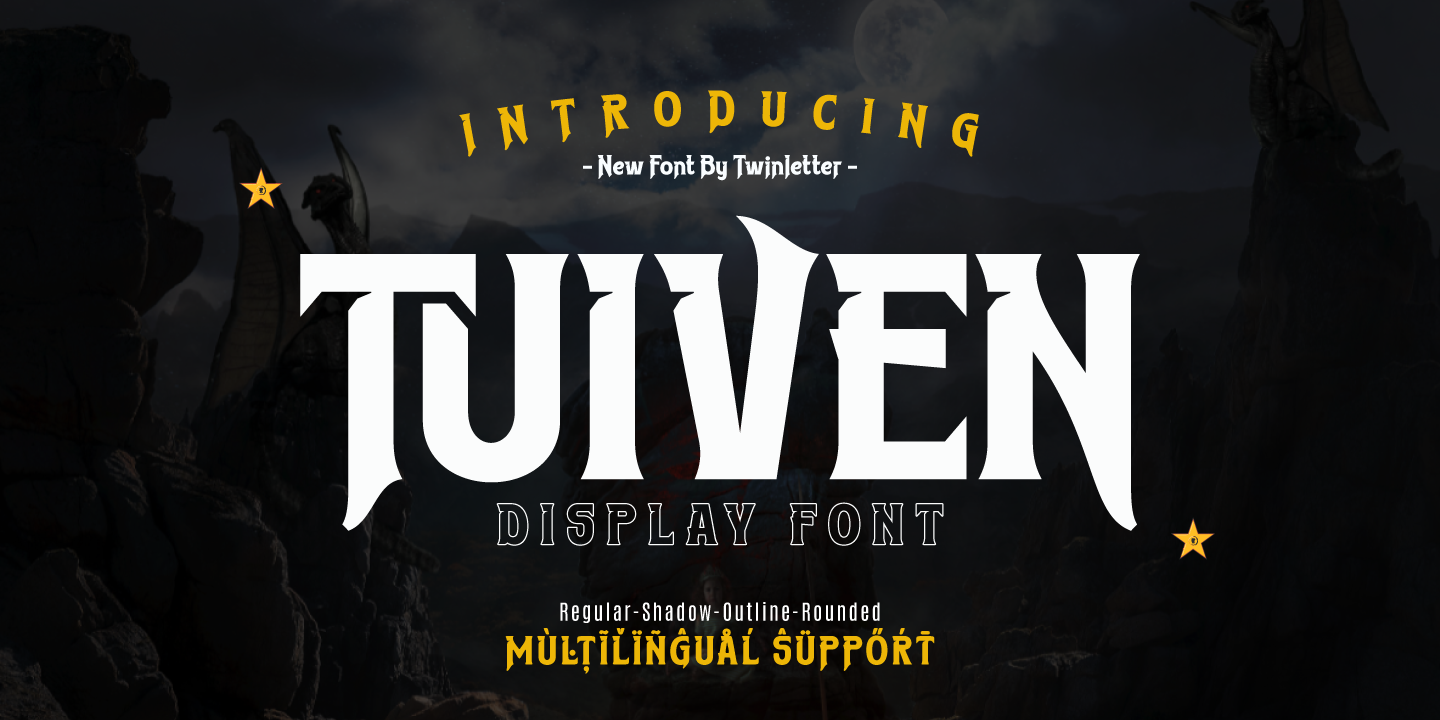
The Tuiven Font is ideal for movie posters, film trailers, title sequences, and cinematic branding projects.
This font is exciting because its bold, dramatic design with elegant details creates a cinematic, epic aesthetic that captures attention instantly.
The Tuiven Font family includes Regular, Bold, Italic, and Shadow styles, offering versatility for impactful visual designs.
Capture the essence of Hollywood with the Tuiven Font Free Download, a typeface crafted to infuse cinematic drama into your projects. Designed by Twinletter, this font blends boldness with elegance, making it perfect for movie titles, promotional posters, and film-related branding. Its artistic letterforms, featuring crisp lines and meticulous details, deliver a luxurious, soulful look that enhances the visual identity of any cinematic work.
The Tuiven Font excels in both digital and print media. Its serious, deep color palette evokes mystery, ideal for epic or thriller genres, while modern elements keep it fresh for contemporary designs. Whether used in a trailer’s bold title or a sleek website header, this font ensures a professional, attention-grabbing presence. It pairs seamlessly with minimalist or ornate design elements, offering creative flexibility for designers.
With its four-style family—Regular, Bold, Italic, and Shadow—the Tuiven Font adapts to a range of creative needs, from subtle accents to commanding headlines. For those testing its potential, the Tuiven Font Free Download provides a demo version to explore its dramatic flair before purchasing a commercial license. PUA-encoded characters ensure accessibility without specialized software, enhancing usability.